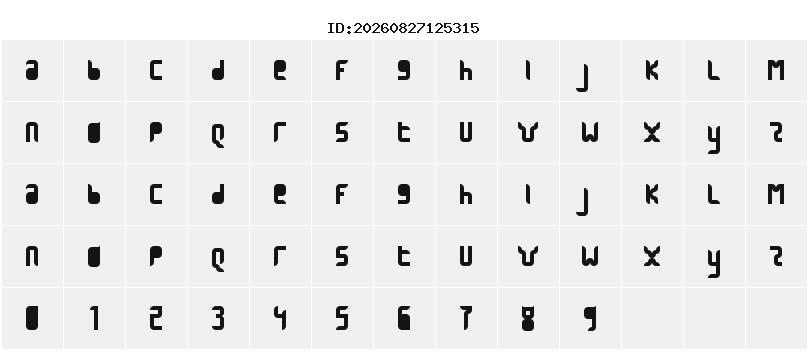
• Font Name: 1945
• Full Font Name: 1945 Regular
• Designer: Muhammad Rizky Ariesto
• Description: ‚Äú1945‚Äù was built with FontStruct
1945.ttf is a modern, elegant sans-serif font designed for ultimate readability and visual harmony. Perfect for branding, headlines, web design, and print materials.